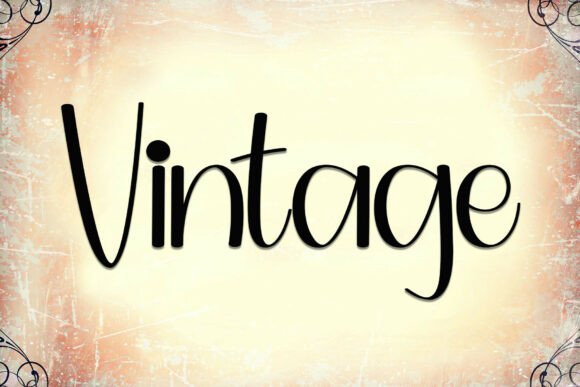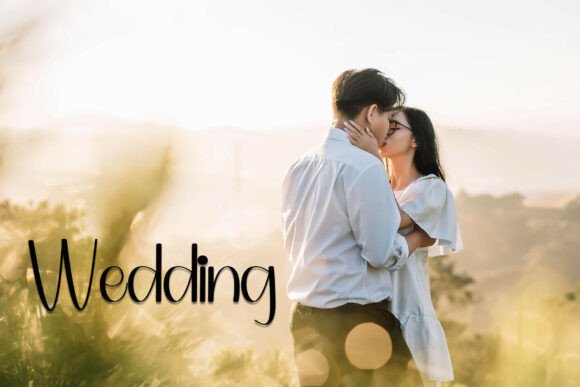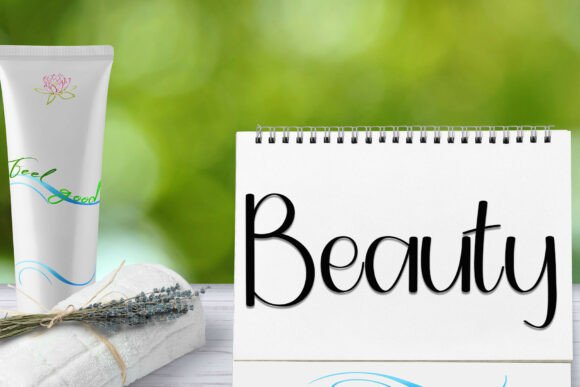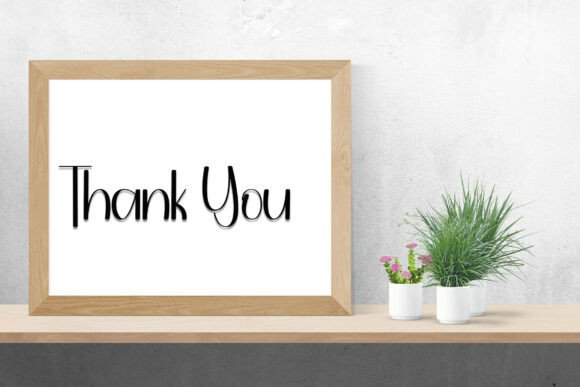
Introducing Delighter Font: The Sweet and Cursive Handwritten Font for Your Design Needs
Are you looking for a font that can add a touch of elegance and whimsy to your designs? Look no further than Delighter Font! This sweet and cursive handwritten font is perfect for designers and crafters who want to create beautiful and eye-catching projects. In this article, we’ll explore the features and benefits of Delighter Font, and how it can elevate your designs to the next level.
The Characteristics of Delighter Font
Delighter Font is a gentle and cursive handwritten font that exudes a sense of joy and romance. Its flowing lines and curves make it perfect for designs that require a touch of elegance and sophistication. The font is highly versatile and can be used on a variety of design ideas, from branding and logos to wedding materials, greeting cards, and marketing promotions.
The Benefits of Using Delighter Font
So, why choose Delighter Font for your design needs? Here are just a few benefits of using this beautiful font:
- Elegant and Casual: Delighter Font strikes the perfect balance between elegance and casualness, making it suitable for a wide range of design projects.
- Versatile: This font can be used on various design materials, including branding, logos, wedding things, greeting cards, fashion, lookbooks, and marketing promotions.
- Easy to Read: Delighter Font is highly legible, making it perfect for designs that require a clear and easy-to-read font.
- Unique and Creative: With its sweet and cursive handwritten style, Delighter Font is sure to make your designs stand out from the crowd.
How to Use Delighter Font in Your Designs
Delighter Font is easy to use and can be incorporated into your designs in a variety of ways. Here are a few ideas to get you started:
- Branding and Logos: Use Delighter Font to create a unique and memorable logo for your brand.
- Wedding Materials: Add a touch of romance and elegance to your wedding designs, including invitations, programs, and decorations.
- Greeting Cards: Create beautiful and heartfelt greeting cards for special occasions, such as birthdays, anniversaries, and holidays.
- Fashion and Lookbooks: Use Delighter Font to add a touch of elegance and sophistication to your fashion designs and lookbooks.
- Marketing Promotions: Make your marketing materials stand out with Delighter Font, including brochures, flyers, and social media graphics.
Tips for Pairing Delighter Font with Other Fonts
Delighter Font can be paired with a variety of fonts to create a unique and visually appealing design. Here are a few tips for pairing Delighter Font with other fonts:
- Pair with a Serif Font: Pair Delighter Font with a serif font, such as Times New Roman or Garamond, to create a classic and elegant look.
- Pair with a Sans-Serif Font: Pair Delighter Font with a sans-serif font, such as Arial or Helvetica, to create a modern and clean look.
- Experiment with Font Sizes: Experiment with different font sizes to create visual interest and hierarchy in your design.
Delighter Font is a beautiful and versatile font that can add a touch of elegance and whimsy to your designs. With its sweet and cursive handwritten style, this font is perfect for designers and crafters who want to create unique and eye-catching projects. Whether you’re designing a logo, wedding materials, or marketing promotions, Delighter Font is sure to make your designs stand out from the crowd.